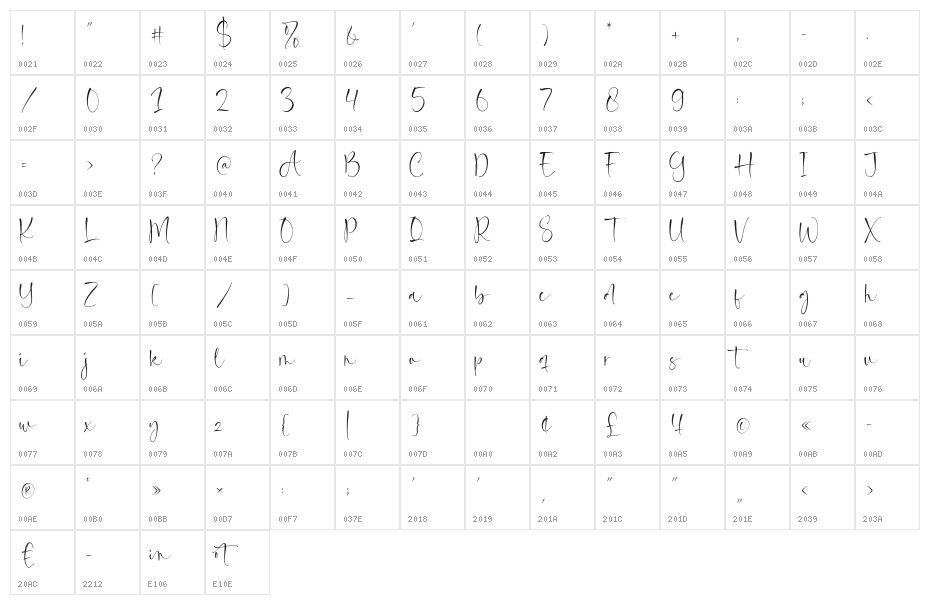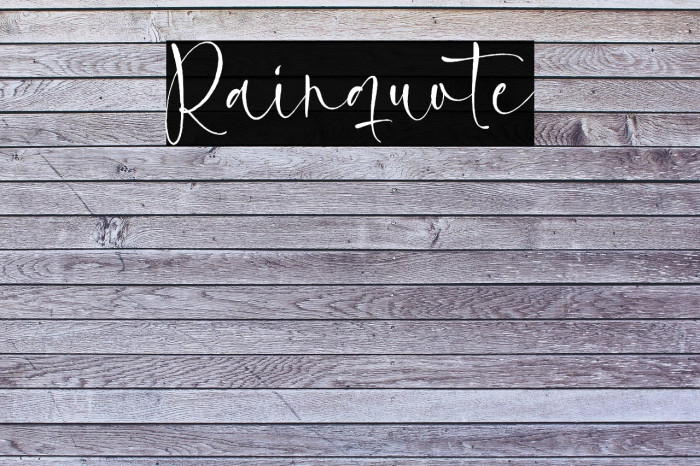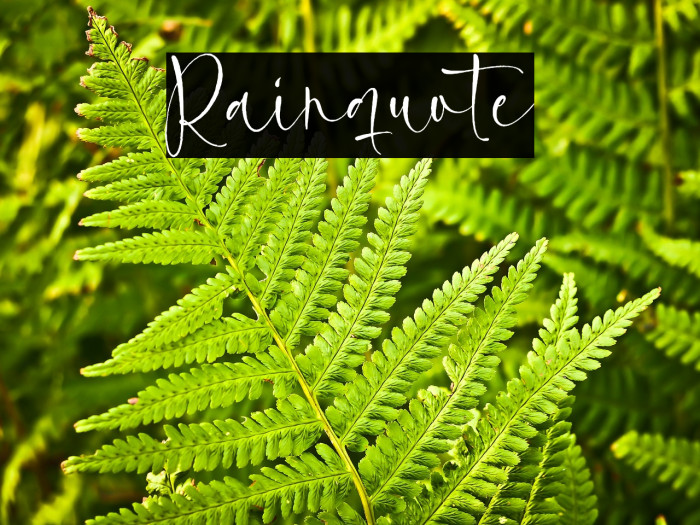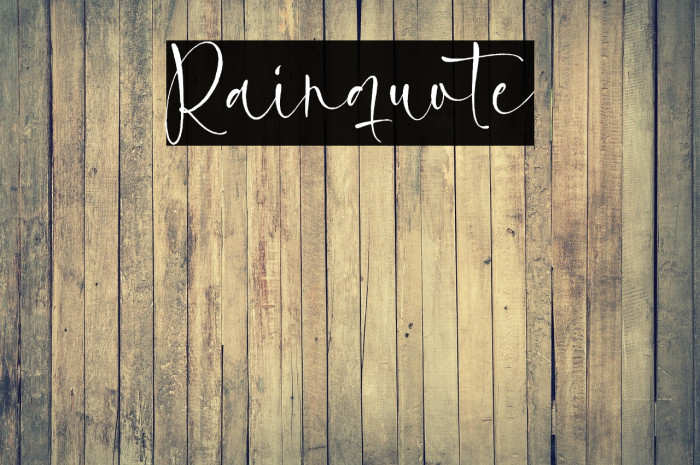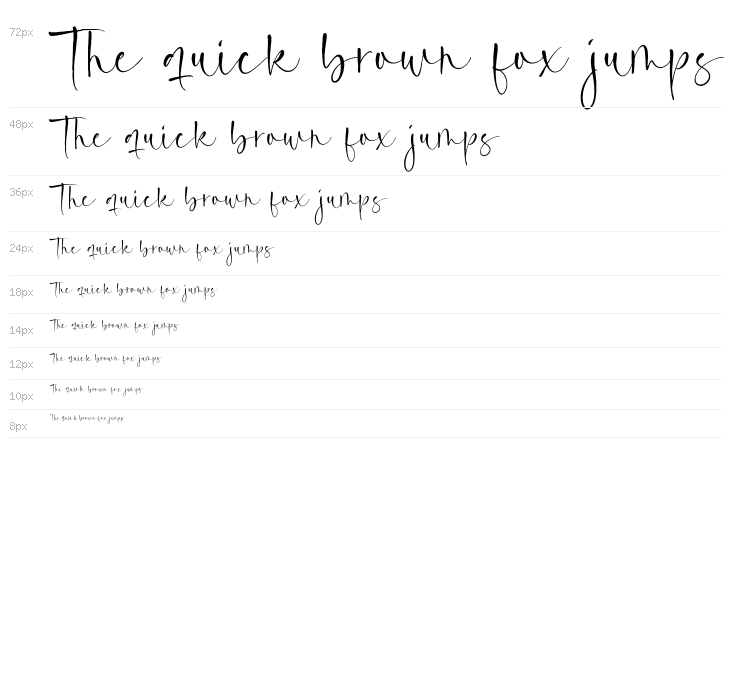
Rainquote Font
Rainquote Description
A loose, flowing handwritten script with tall, narrow letterforms and variable stroke thickness, giving it an organic, whimsical appearance. The characters feature playful loops and irregular connections, mimicking natural handwriting with a slightly messy, artistic flair.
| Width | Condensed |
| Overall Style | Decorative, Artistic, Whimsical |
| Use Case | Logos, Invitations, Quotes, Decorative headings |
| Proposed Projects | Wedding invitations, greeting cards, quotes, branding for creative businesses, social media graphics. |